Each of us often thinks about the vastness of space and it gives us diverse feelings, so today we decided to present you this amazing space fonts collection for every designer’s taste and needs.
All these fonts are created by professional designers and are undoubtedly of the best quality, because a lot of time and effort was spent on it. These space fonts are most suitable for designs that need a lot of space and feeling, so it could be posters, flyers, web design, lettering and more. Just relax and let your imagination run wild.
Return Space
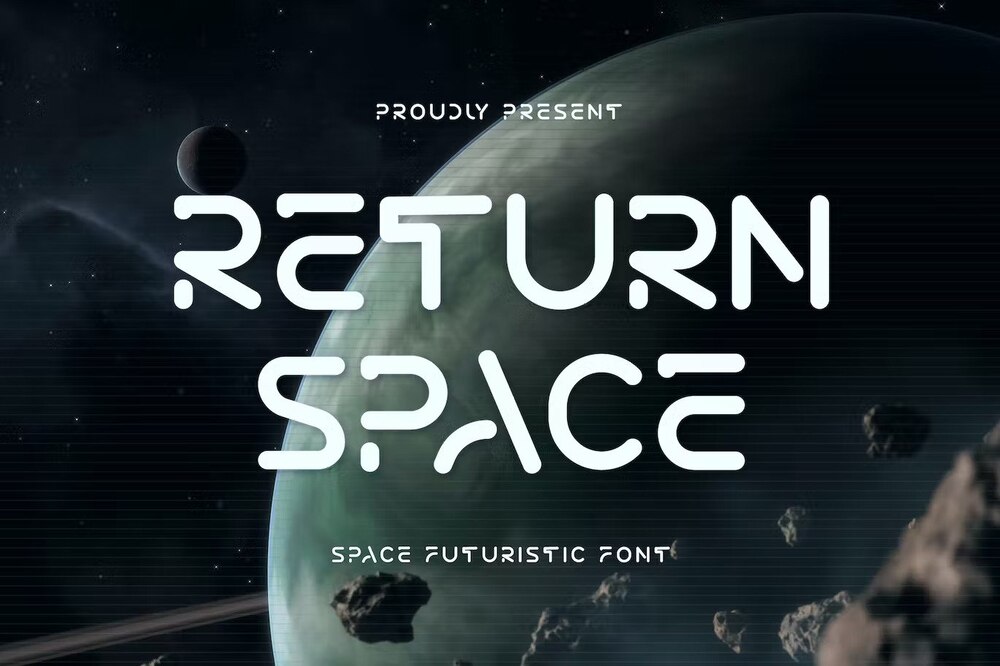
It is a space futuristic font in a modern style. Perfect for games, sci-fi themes, and space adventure designs.
Space Time
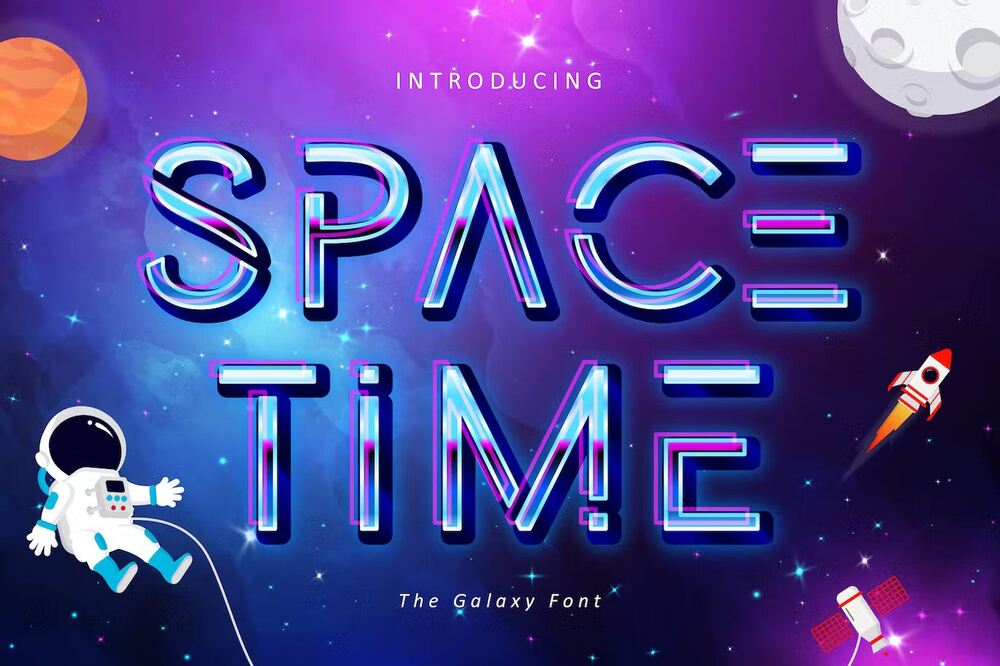
This space style font are perfect for any modern design purpose like fashion, magazines, headlines, web, logos, and clothing.
Amsteroid Space
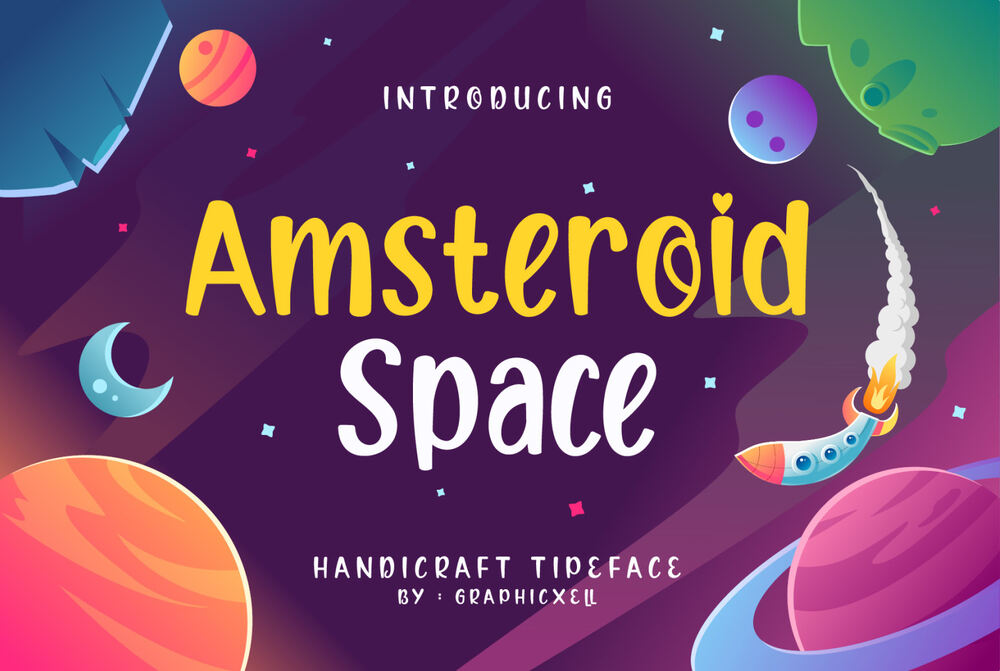
It is a display font, so good for products such as food banners, restaurants, crafts, product packaging, quotes, product designs and etc.
Free Astron Font
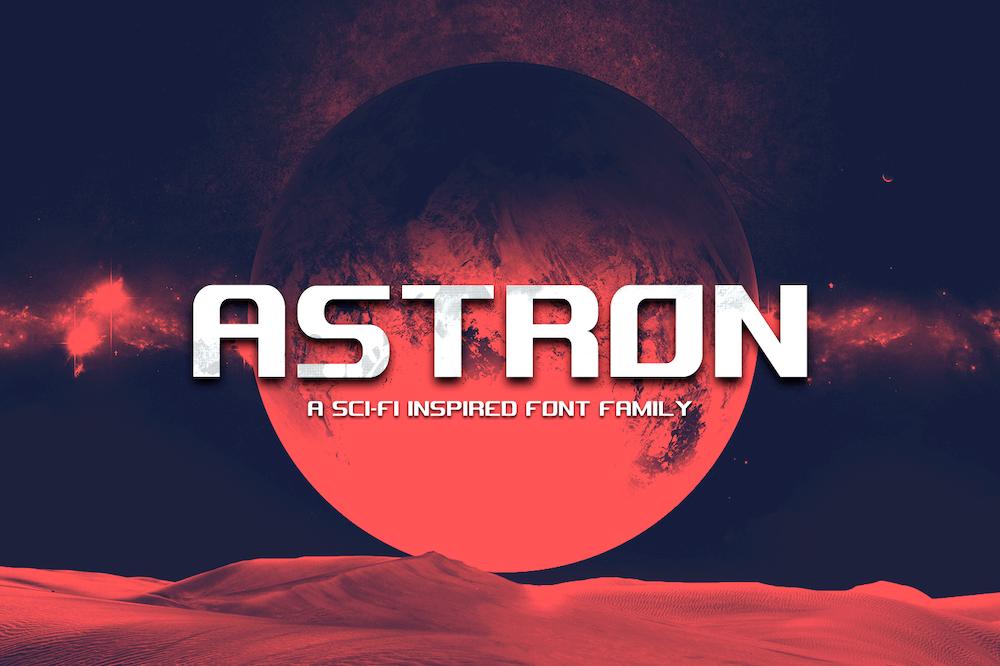
It is a sci-fi inspired space themed font so good going for designs such as futuristic posters, flyers, book covers, titles, headlines, logos and etc.
Free Exodus Font
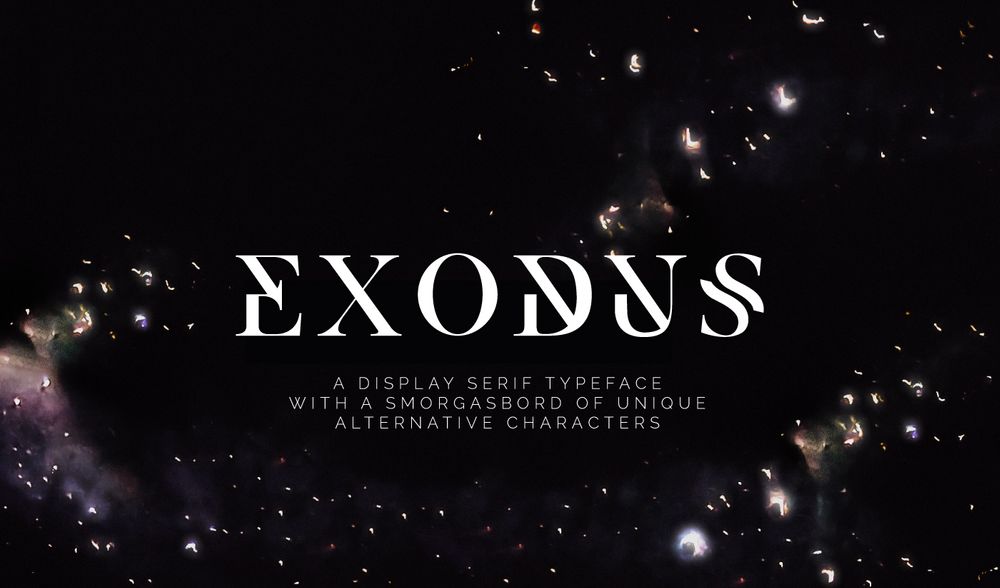
It is a space font that will have you enjoy a lot of creative freedom in your hand. Ideal for headlines, tittles, covers, posters, flyers and etc.
Free Space Surfer Font
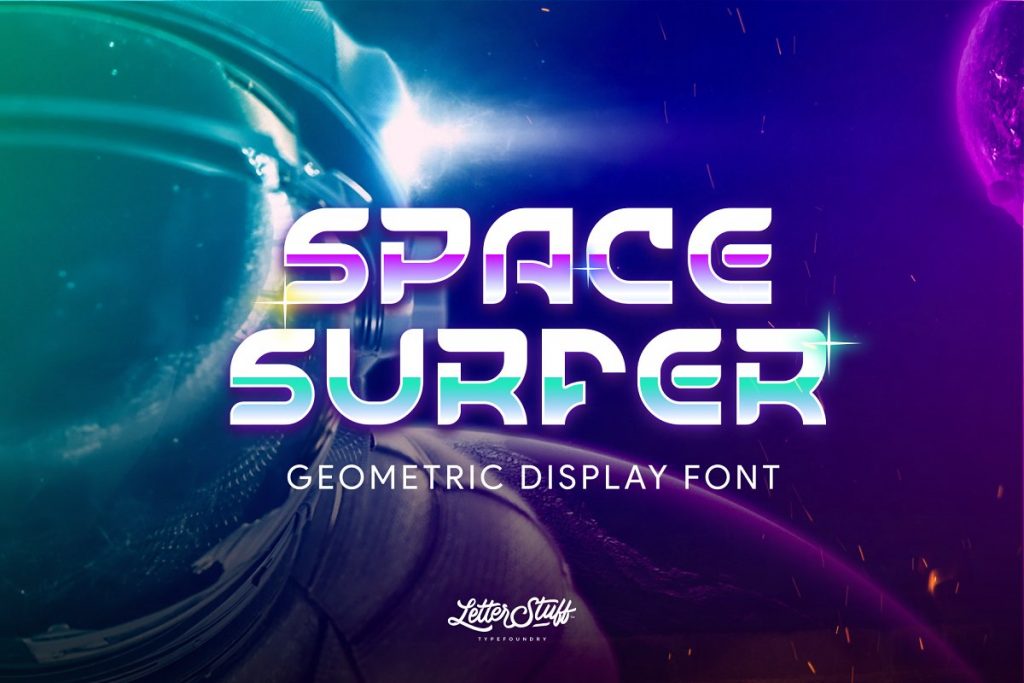
It is new futuristic, strong yet bold display font was made with precision. The font suitable for any modern designs such as logos, lettering, posters, flyers and etc.
Free Made Evolve Font
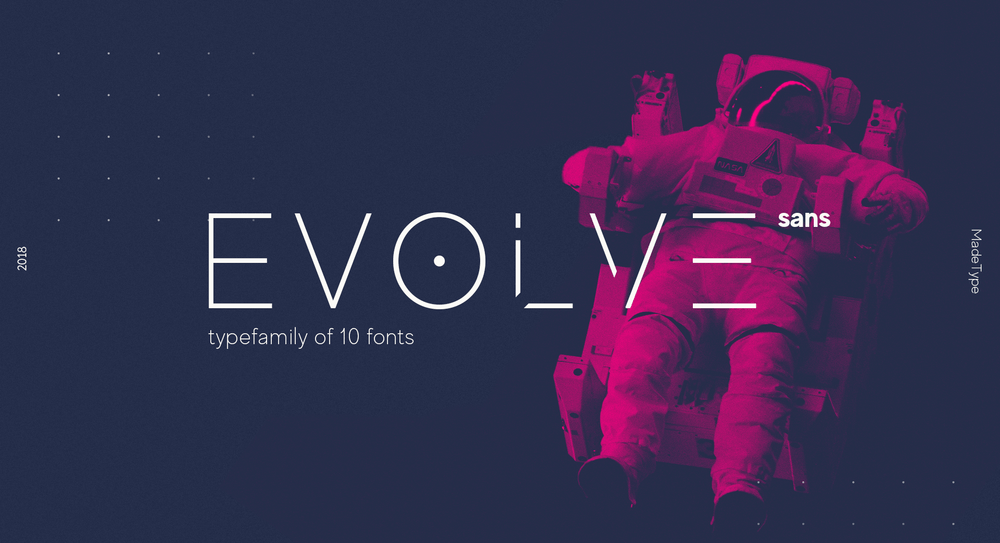
It is a stylish and futuristic font featuring a space design. Perfect for sci-fi, futuristic designs, posters, movie tittles, covers and etc.
Free Potra Font
It is a free all-caps display font that will add ornamental decor to your space-themed projects. Ideal for designs such as print, banners, covers, posters, packaging and etc.
Free Efesto Font
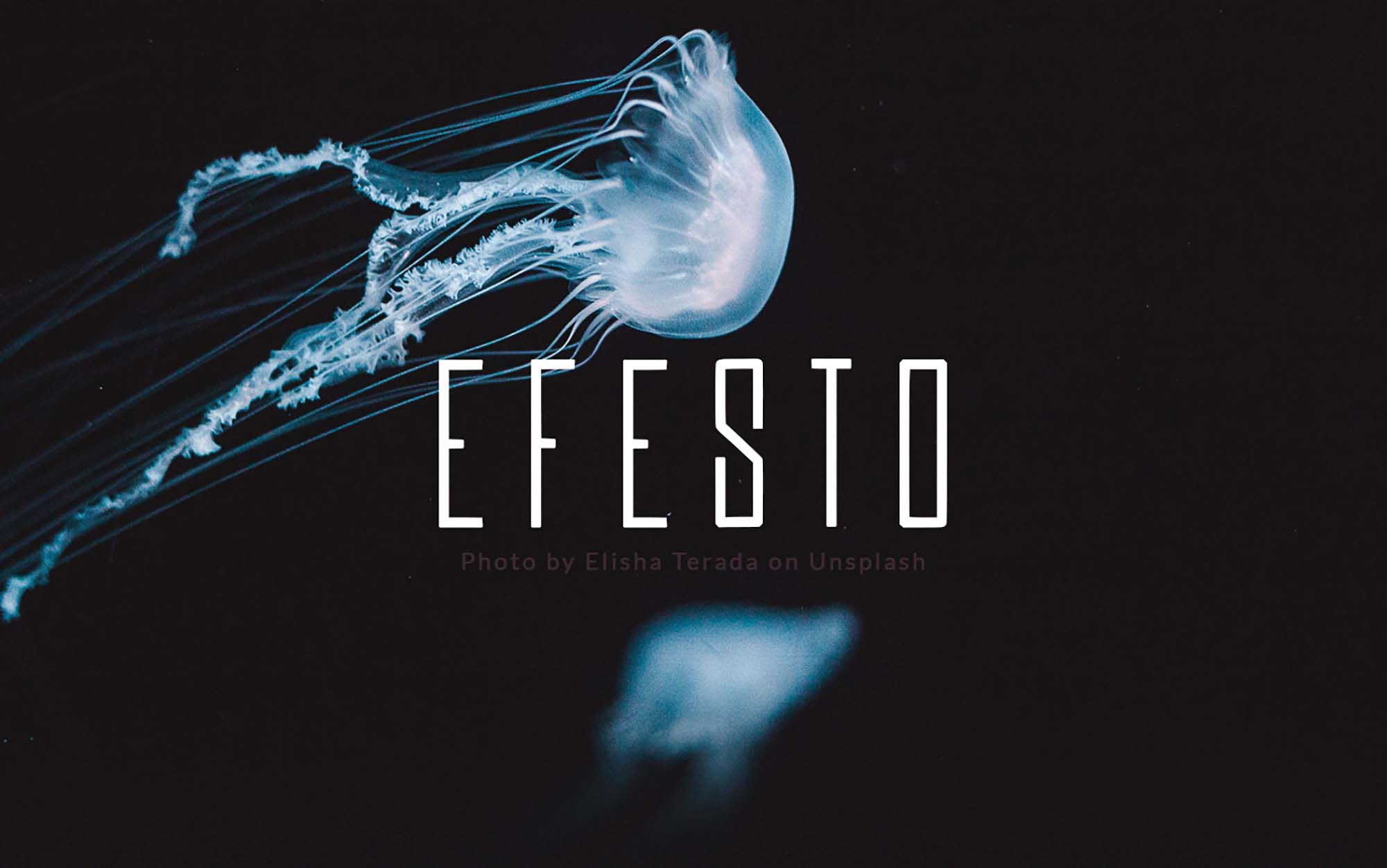
It is a minimal space font so good going for designs such as posters, movie covers, tittles, headlines and others. Free for personal and commercial use.
Free Space Font
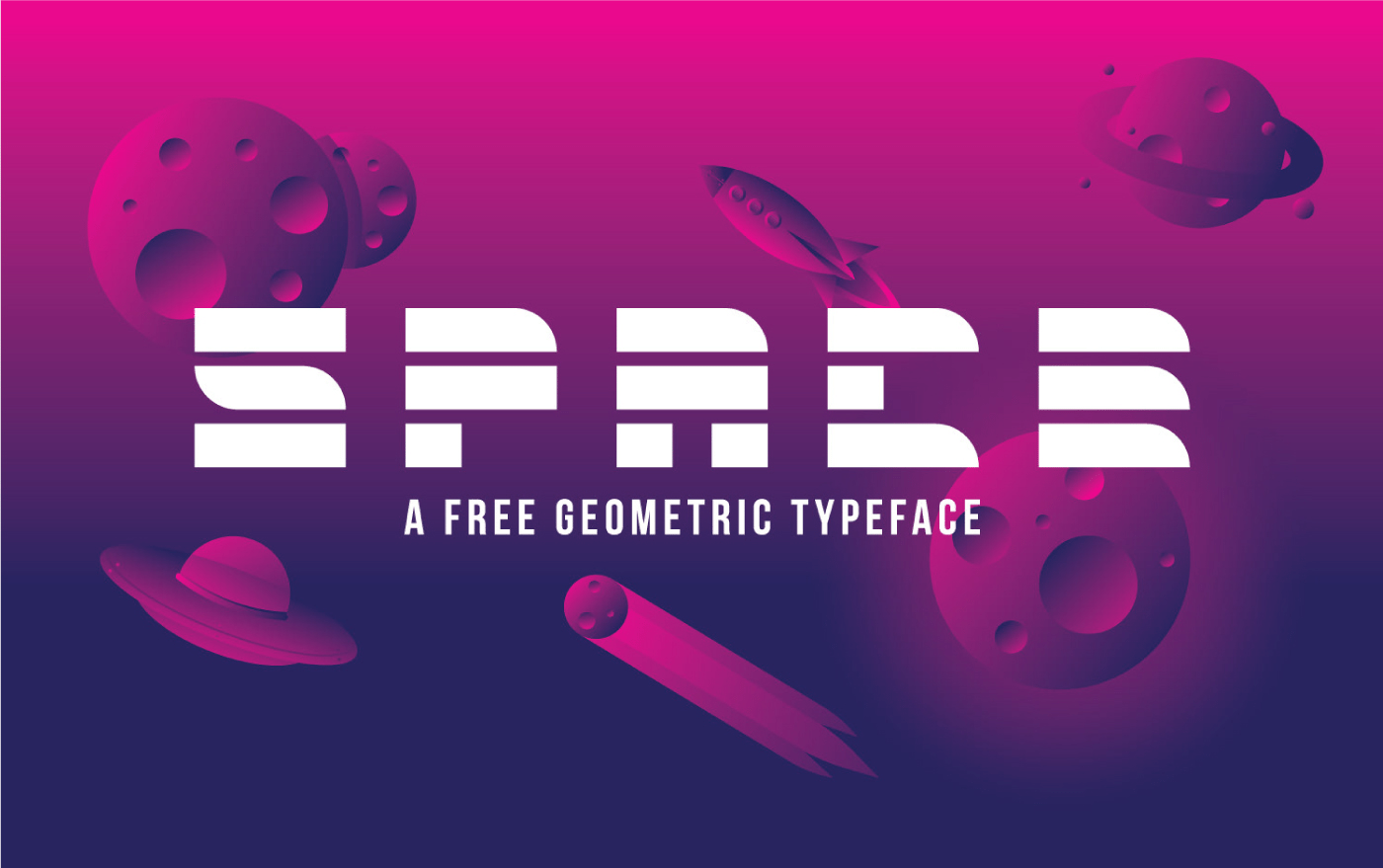
It is a free futuristic font with a touch of retro style. Ideal for many typo of futuristic designs like flyers, posters, logos, packaging and etc.
Free Zero G Font
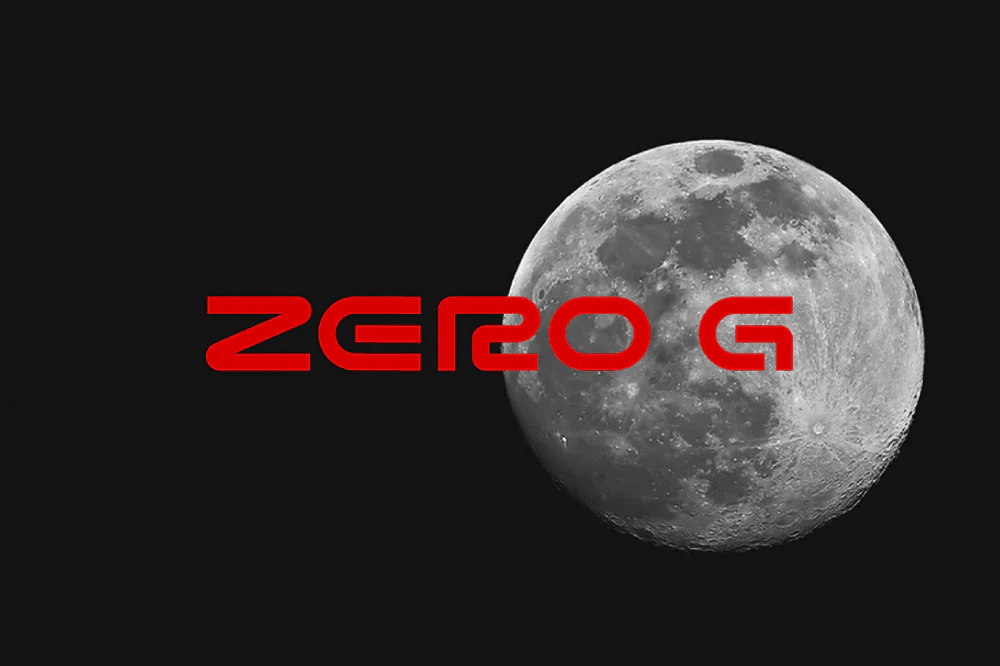
It is a free dynamic sans serif futuristic typeface well suits for designs such as logos, branding, posters, flyers, covers and others. Free for personal and commercial use.
Free Kidspace Font
This free font will help you add a sense of playfulness and creativity to your design. Perfect for kids designs, logos, packaging, lettering, titles and others. Free for personal use only.
Free Halfomania Font
It is a futuristic geometric font so good going for designs such as movie titles, covers, posters, flyers and others. Free for personal and commercial use.
Lost in Space
It’s a geometric vintage font with simple square shape. This font has a western european multilingual support. Ideal for book covers, titles, posters, flyers and etc.
Overfly
A blank space font with calligraphic style so good on designs such as greeting cards, branding materials, business cards, quotes, posters and etc.
Space Boards
It is a sans based font with unique lowercase and uppercase that will make your design looks futuristic and modern. You can use this font for any purpose, especially to make hi-tech logotype.
Eternals
A sci-fi display font which are best to create posters, flyers, invitations, postcards and etc.
Wavemax
A linear space futuristic font to add an excitment to your designs. Best for movies, documenters, films, logos, posters, games, book covers, headlines, titles and etc.
Space Crow
It is a futuristic font that carries uppercase characters with a set of numbers that showcase a futuristic unique design. Ideal for movie posters set in space or in the future.
Blank Space
These amazing bold fonts suitable to complement your digital and printed creative products. Perfect for posters, social media posts, branding, personal projects and etc.
MBF Space
A clean modern thin rounded font so good going for designs such as posters, titles, wordmarks, headlines and many more.
Space